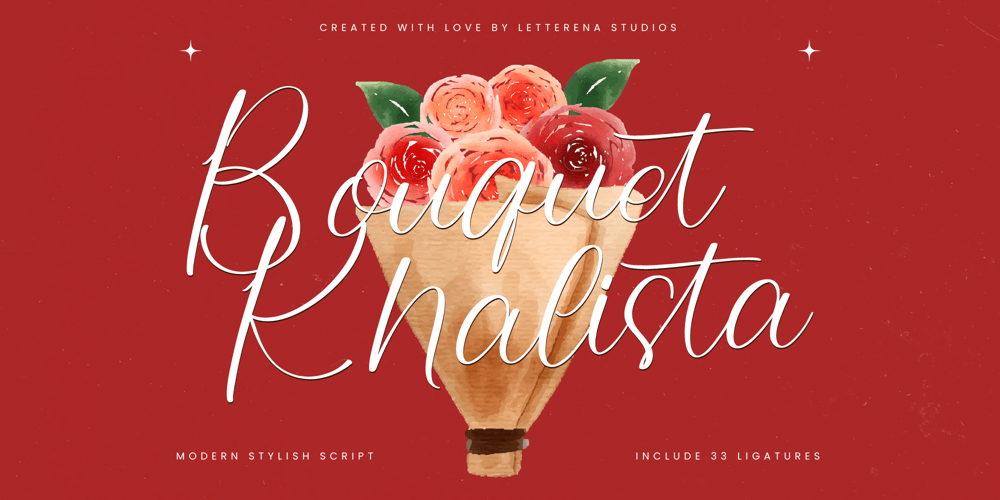
Boquet Khalista Font Family was designed by Heru Utama Putra and published by Letterena Studios. Boquet Khalista contains 1 styles and family package options. Boquet Khalista is a beautiful, elegant script font with flowing, cursive letters. It has a stylish and sophisticated look, perfect for adding a touch of class to invitations, greeting cards, and other special designs.